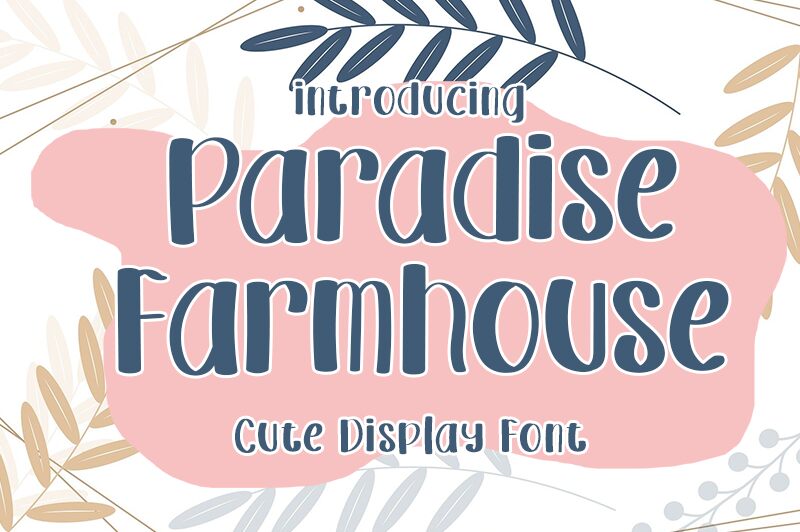
Paradise Farmhouse
Introducing Paradise Farmhouse, a bold and cute display font designed by Nur Edi Prayitno. This unique typeface is perfect for creating eye-catching designs such as logos, posters, greeting cards and more. Get creative with Paradise Farmhouse today!